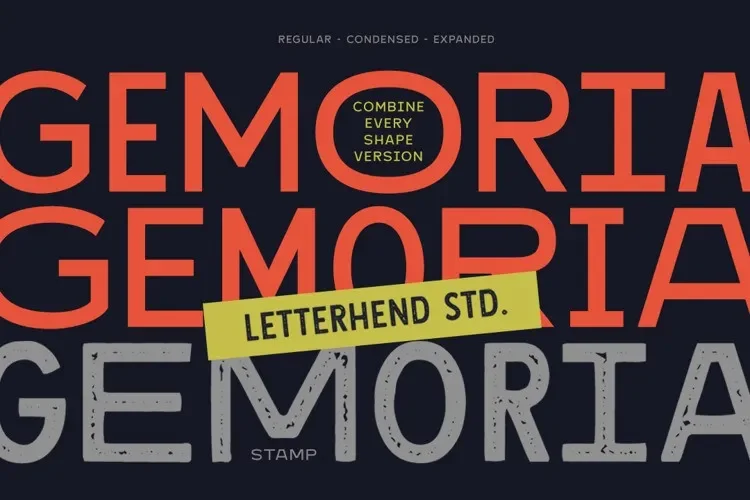
Gemoria Font helps designers solve layout problems where standard fonts lack character for headlines and branding. Display fonts often sacrifice clarity, especially in posters and digital banners.
Gemoria Font is a decorative display font featuring bold strokes, defined curves, and distinct letter shapes. The font emphasizes visual impact rather than long-form readability, making it suitable for short text and titles.